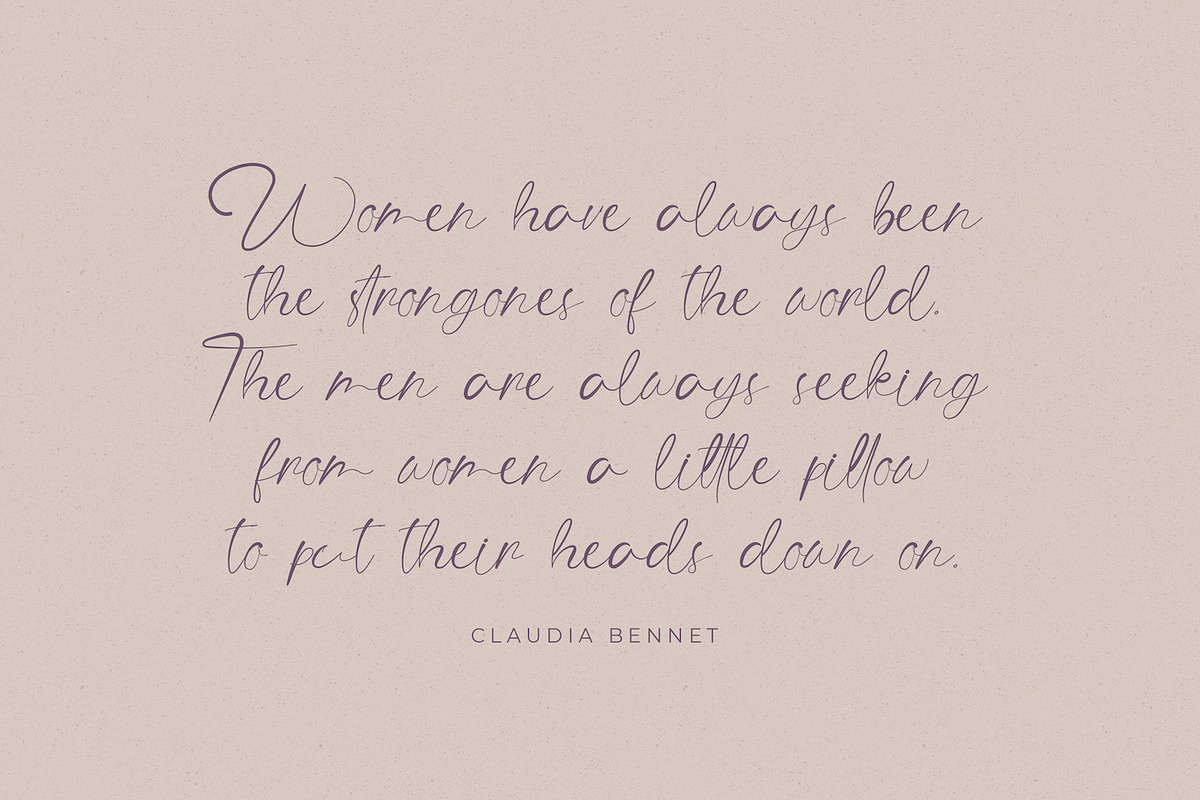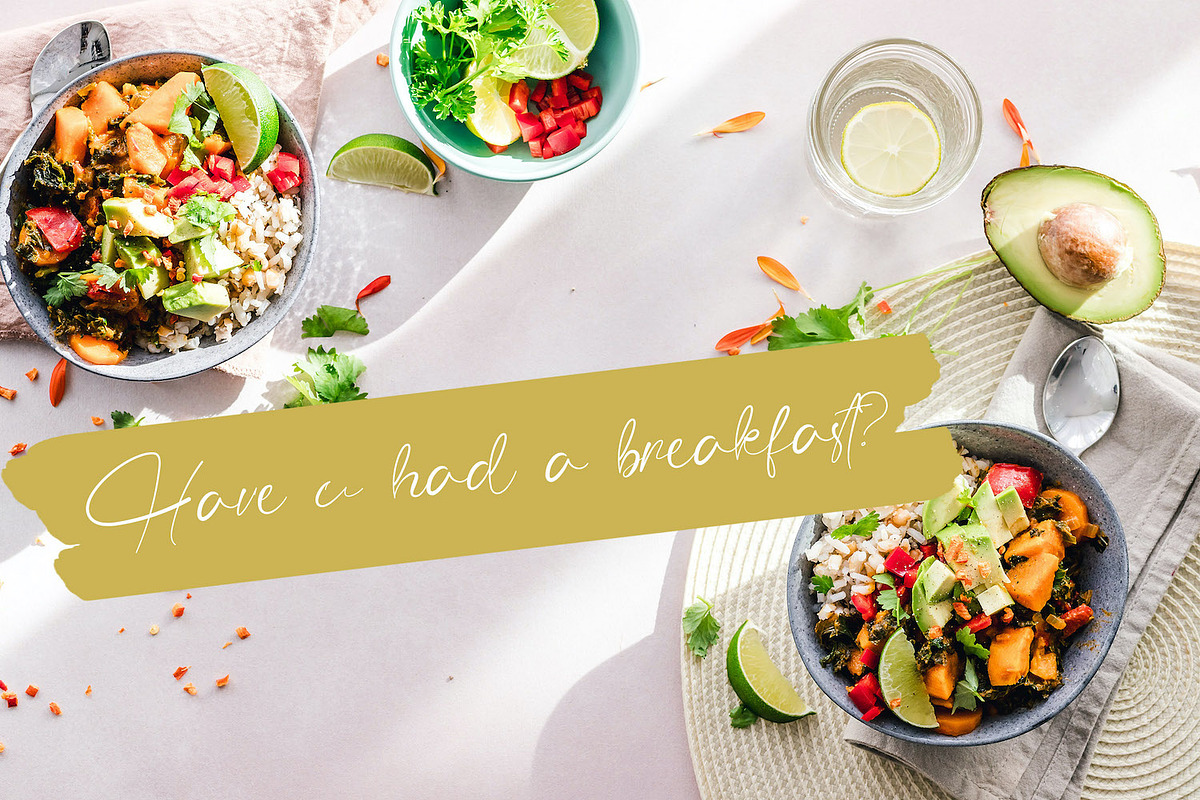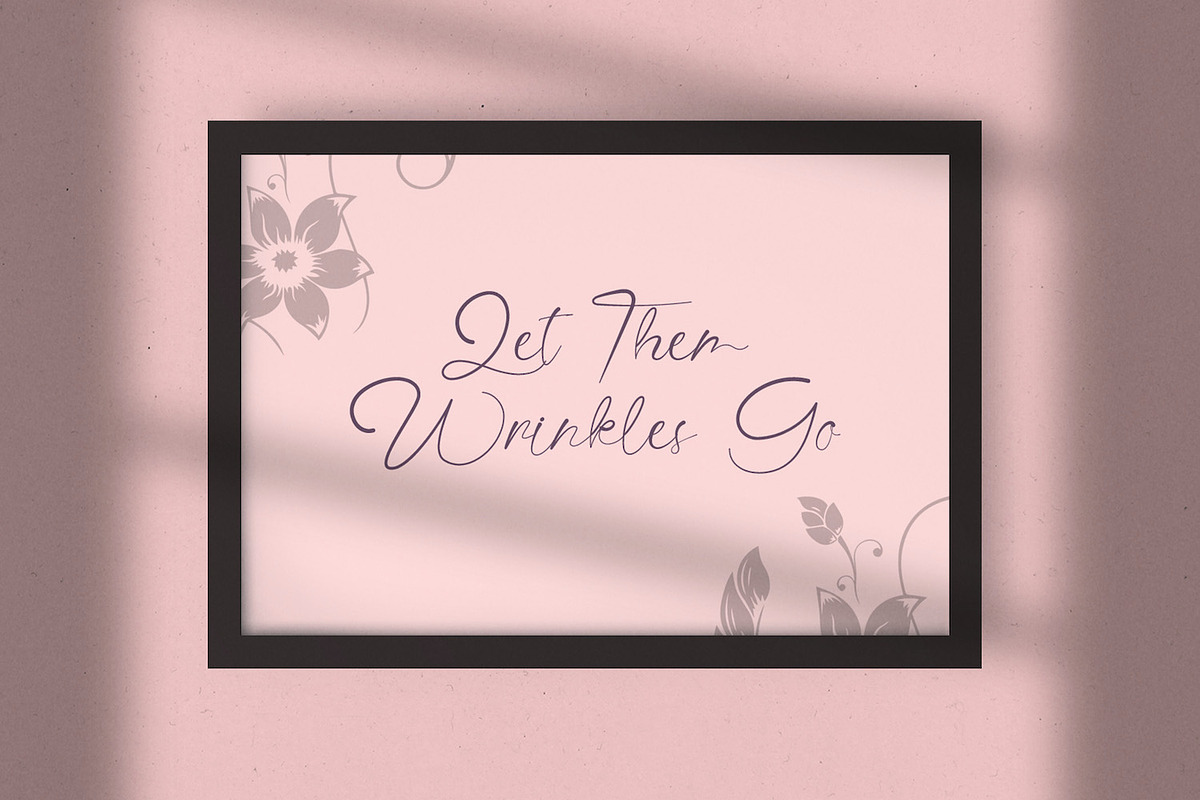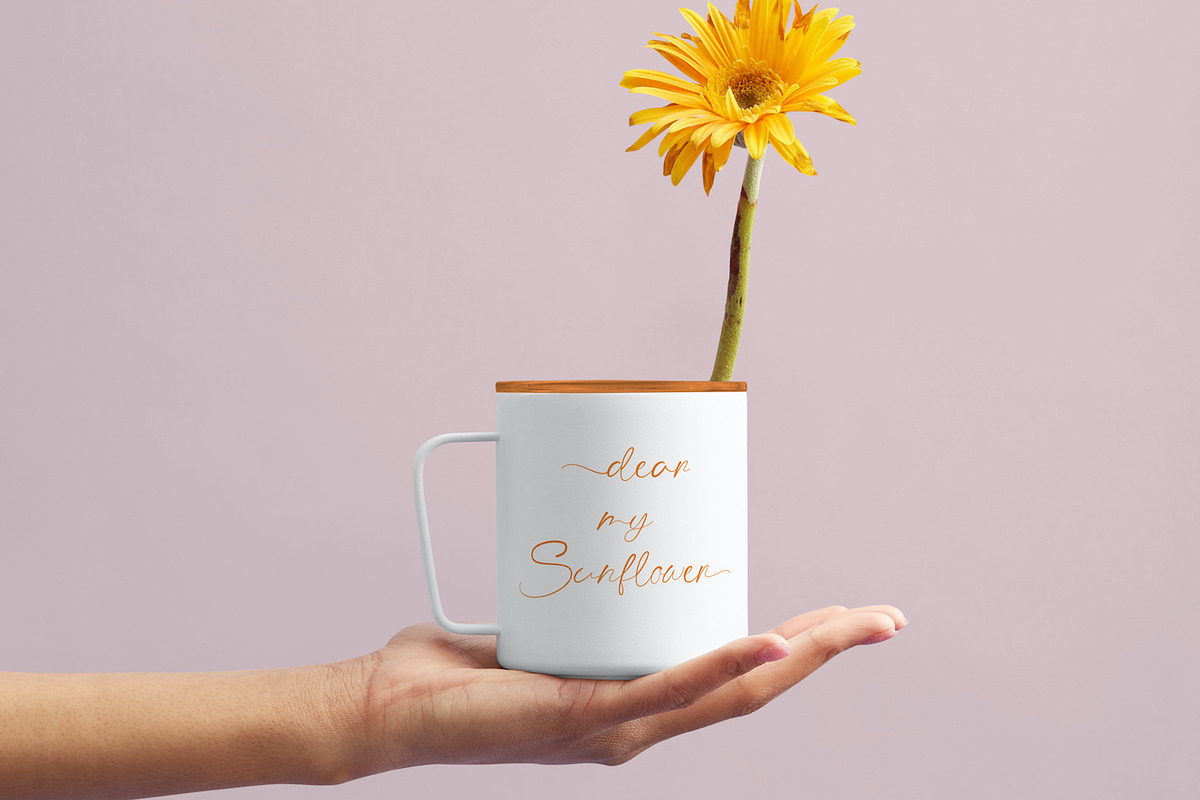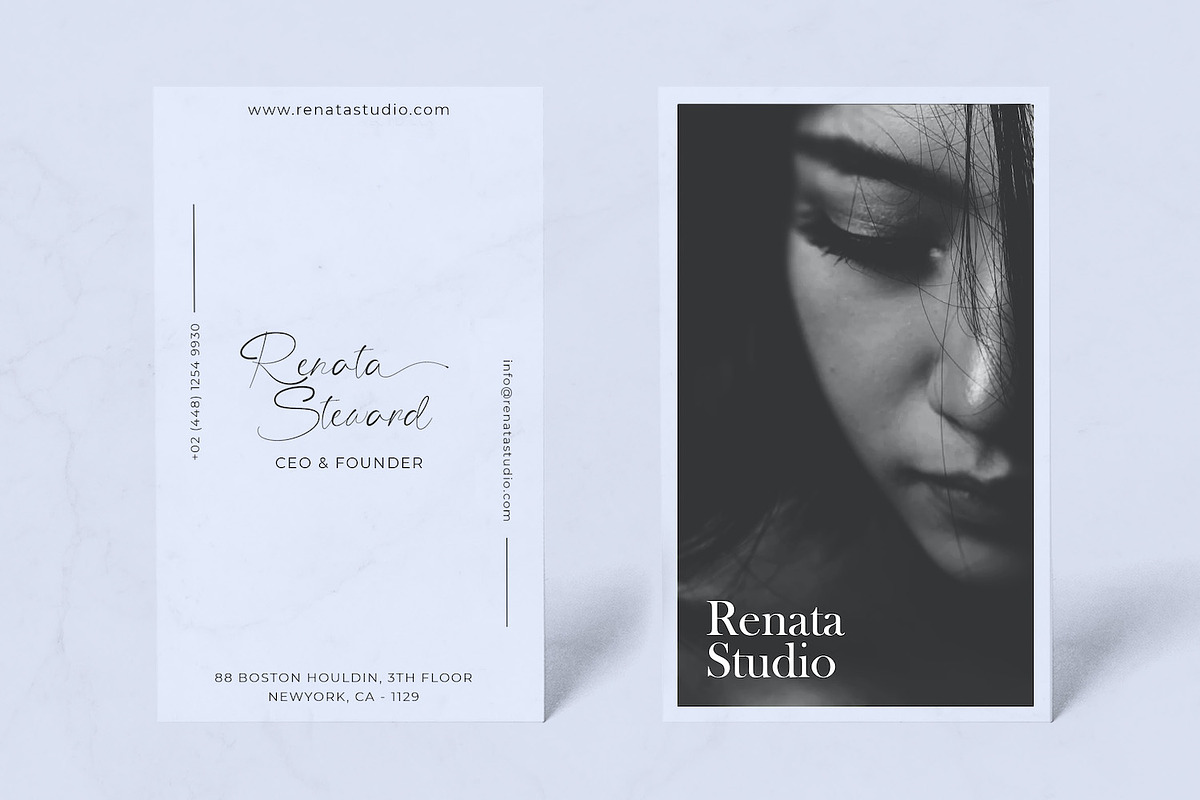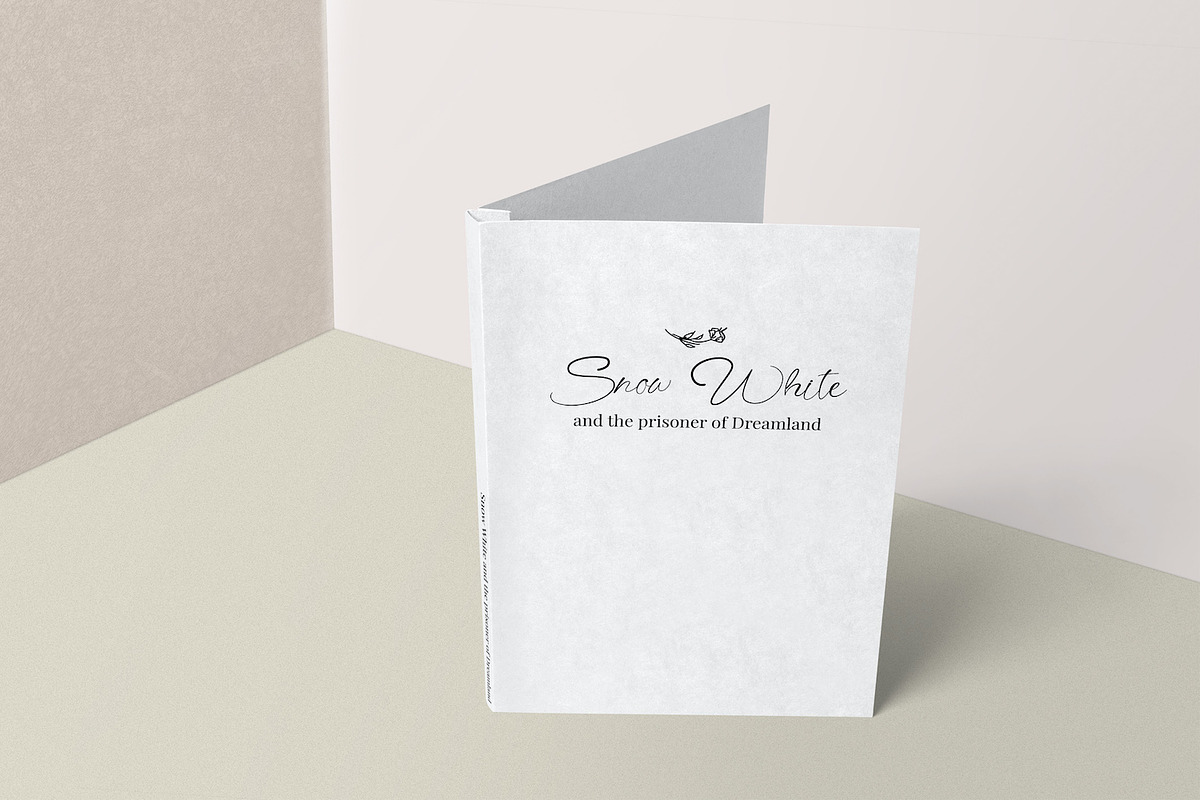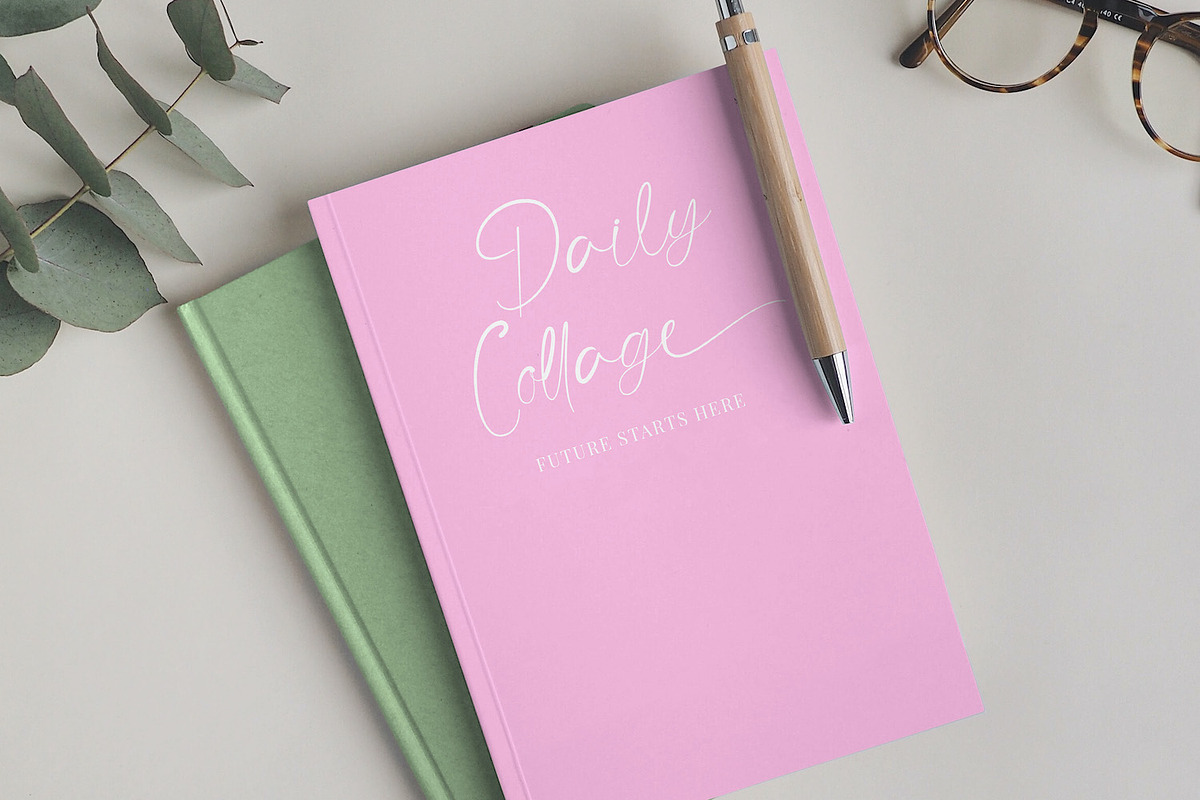
The Angellica - Calligraphy Font
Introducing The Angellica - Modern Calligraphy Font
The Angellica is a Calligraphy Script Font with Casual Style. This font is perfect for fashion brand, wedding invitation, business card, logo brand, signature, and also for calligraphy purpose.
- This Font Template contains Classy, Elegant, Creative, Cool and has a Unique Concept.
Why The Angellica - Calligraphy Font is worth a look
The Angellica - Calligraphy Font by StringLabs fits naturally into Branding, posters, packaging, typography.